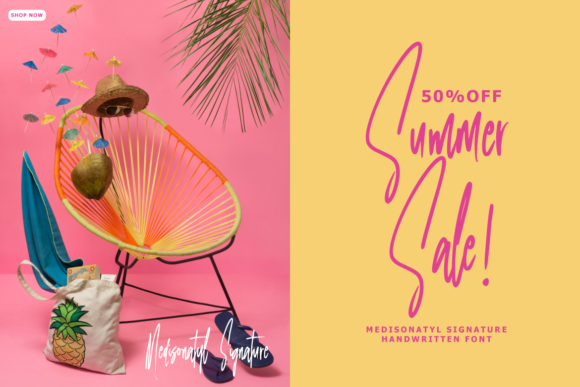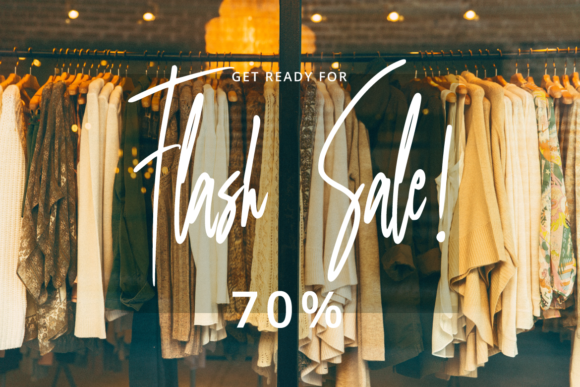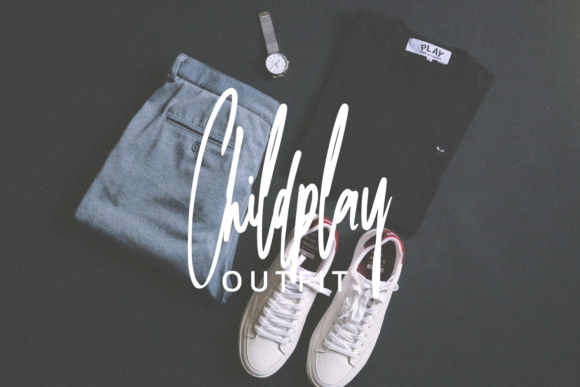
Introduction to Medisonatyl Font
Medisonatyl is a thin lettered, stylish and thin lettered script font.
This font is PUA encoded which means you can access all of the glyphs and swashes with ease Fall in love with its incredibly versatile style and use it to create spectacular designs.
Key Features of Medisonatyl Font
Why Choose Medisonatyl Font?
Medisonatyl Font offers exceptional quality and versatility, making it a valuable addition to your design toolkit. Whether you’re creating for personal projects or commercial use, Medisonatyl Font delivers professional results.